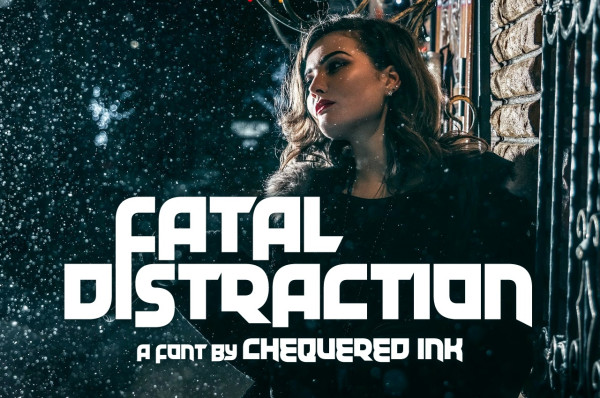
Fatal Distraction Font
Fatal Distraction Font, This bundle features strong, confident and powerful typefaces designed to work great with sports logos, club branding, apparel applications, labels and more.